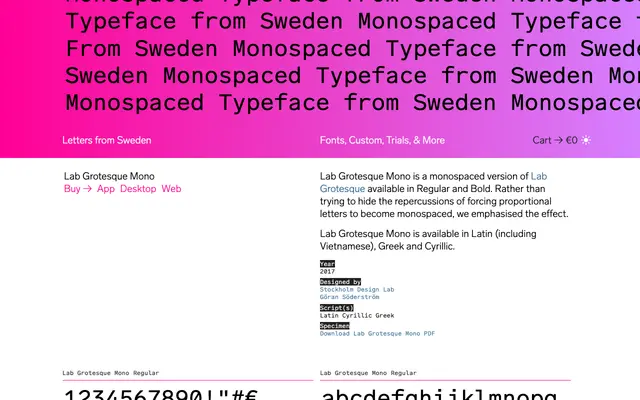
Lab Grotesque Mono
Letters from Sweden · Stockholm Design Lab, Göran Söderström · 2017
A two-weight monospaced companion to Lab Grotesque that deliberately accentuates the quirks of fixed-width spacing rather than smoothing them away.
Designed by Stockholm Design Lab and Göran Söderström and released in 2017, this family extends Lab Grotesque into monospaced territory with Regular and Bold weights. The design philosophy treats the visual distortions of forcing proportional letters into fixed widths as a feature rather than a flaw. Script coverage spans Latin with Vietnamese support, Cyrillic and Greek.
A monospaced companion to the Lab Grotesque family, it retains grotesque proportions while embracing the visual artefacts of fixed-width spacing rather than concealing them.